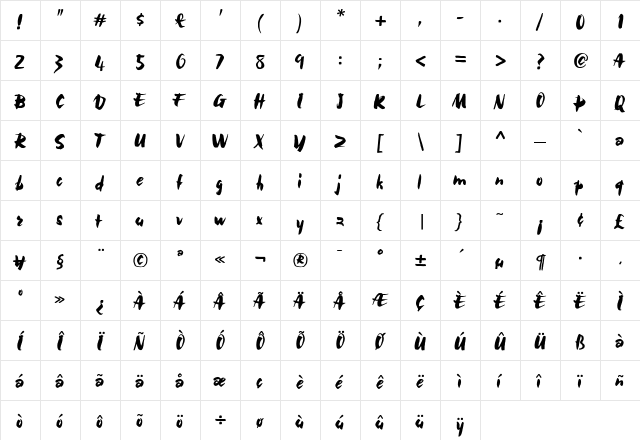
BolideScript Bold
Design Context for BolideScript Typeface
BolideScript brings a calligraphic fluidity to the page — its connecting strokes and expressive curves give it an unmistakably human quality. Its bold stroke weight gives it real presence on the page.
Font Pairing: Combine BolideScript with a simple geometric sans for maximum contrast — the tension between flowing curves and clean structure is a classic typographic pairing.
Pro Tip: Use BolideScript for short runs of text — names, titles, or taglines. Extended body copy in script faces tires the eye quickly.